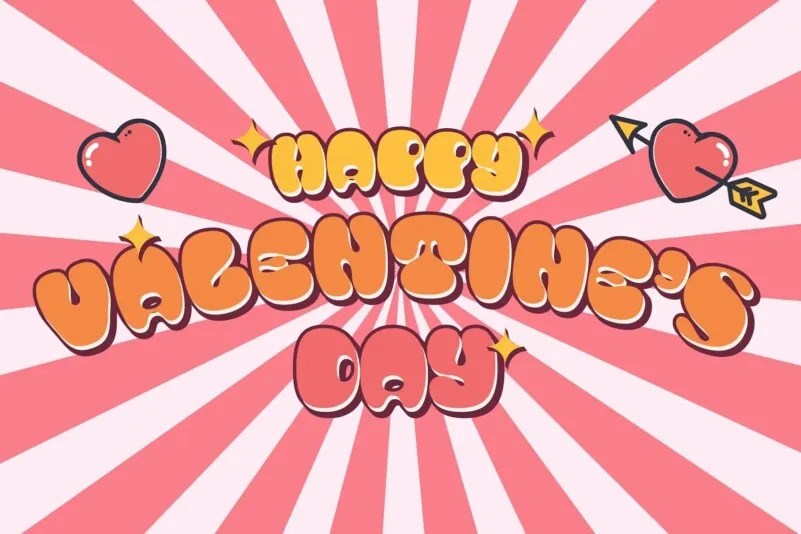
Mochita Display Font is a sweet, cute, and unique font designed by Sign Studio. Even so, it still maintains good detail and balances the negative space. This font would be perfect for logo designs, titles, product names, labeling, or anything with a fun design theme.
Mochita Display is a versatile and stylish typeface that is perfect for a variety of projects. If you are looking for a font that is both fun and functional, then Mochita is a great option.